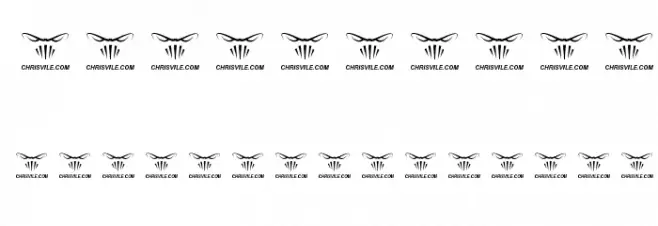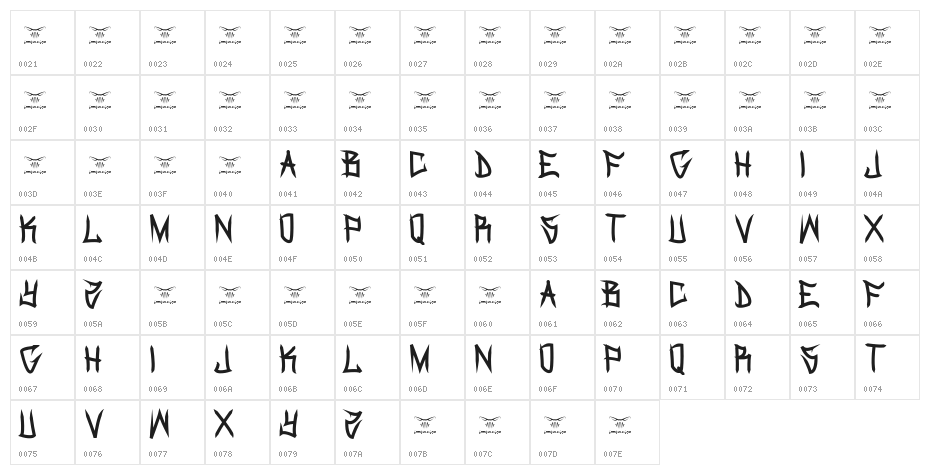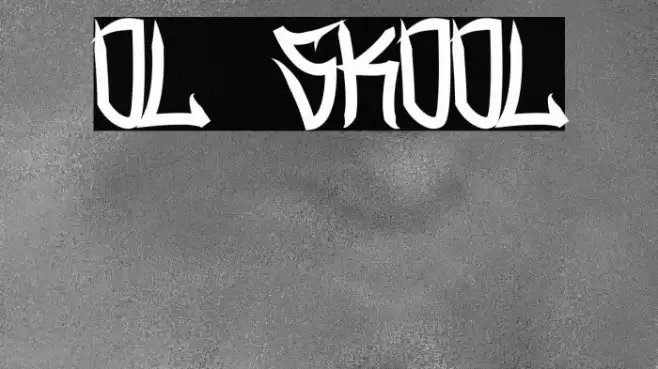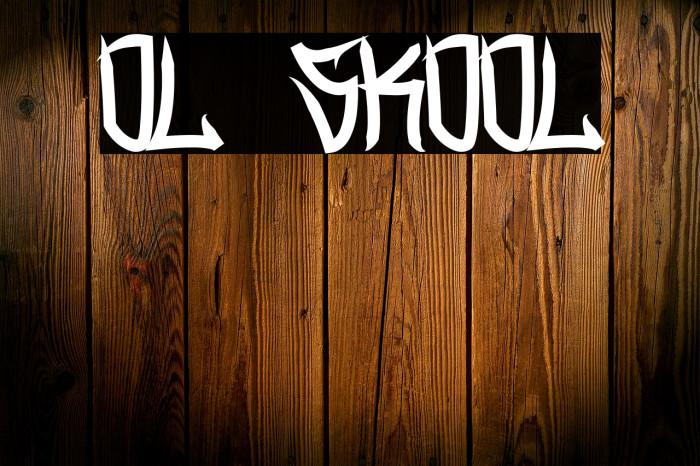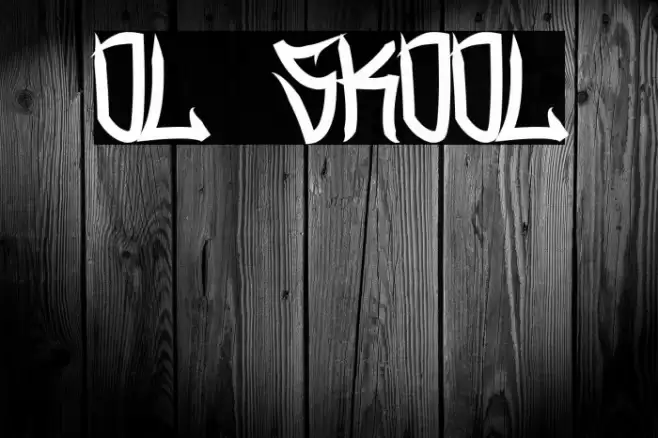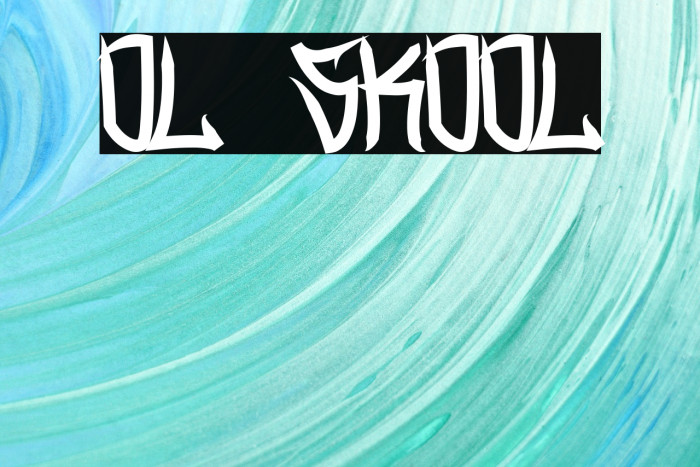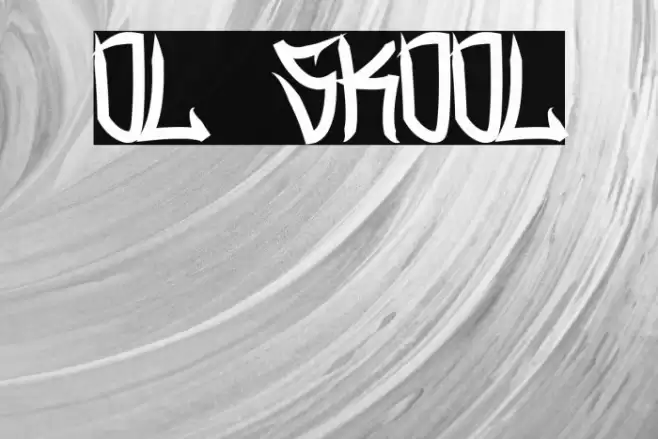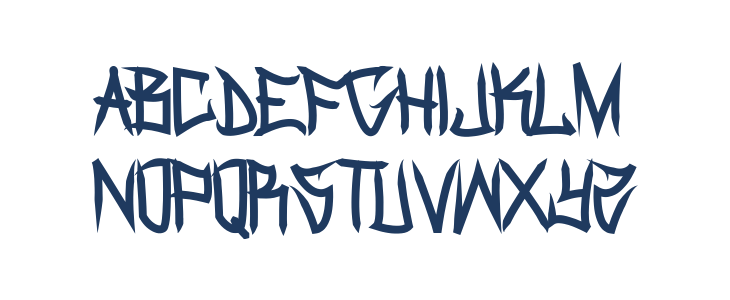
Ol Skool Font
Ol Skool Description
This font features a bold, edgy design with sharp angles and a graffiti-inspired aesthetic. The uppercase letters are characterized by their jagged edges and dynamic strokes, giving a sense of movement and energy. The style is reminiscent of street art, with a rebellious and urban feel. The characters are tightly spaced, enhancing the compact and impactful appearance. The font's unique design makes it stand out, suitable for projects that require a bold statement or an artistic touch.
| Overall Style | Urban, Edgy, Artistic |
| Use Case | Logos, Posters, Album Covers |
| Proposed Projects | Ideal for street art designs, music album covers, urban-themed posters, and edgy branding projects. |